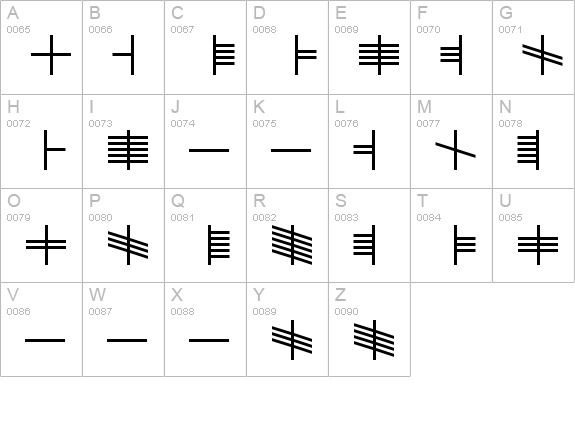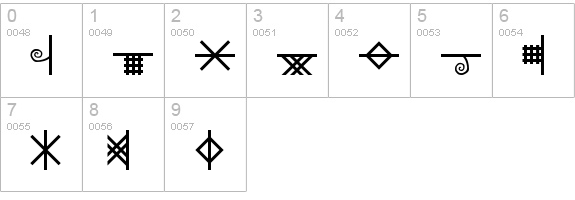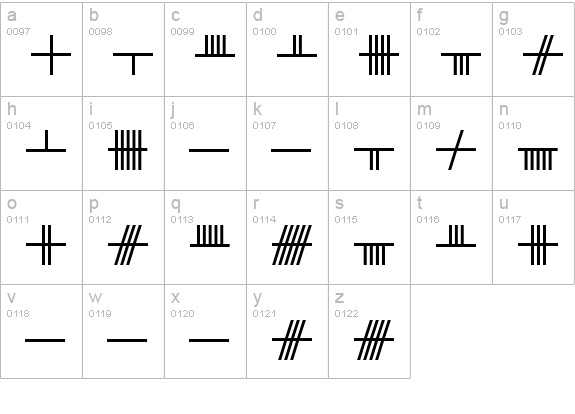
Beth-Luis-Fearn is a stunning font that exudes elegance and sophistication. With its unique blend of traditional and modern elements, this font is perfect for a wide range of design projects. Its sleek lines and sharp edges make it stand out from the crowd, while its classic appeal adds a touch of timeless beauty. The best part? Beth-Luis-Fearn is completely free to download at FontsMarket.com. Whether you're working on a professional project or simply looking to add a touch of style to your personal creations, this font is sure to impress. Don't miss out on the opportunity to enhance your designs with this beautiful and versatile typeface. Download Beth-Luis-Fearn today and bring your creative vision to life!